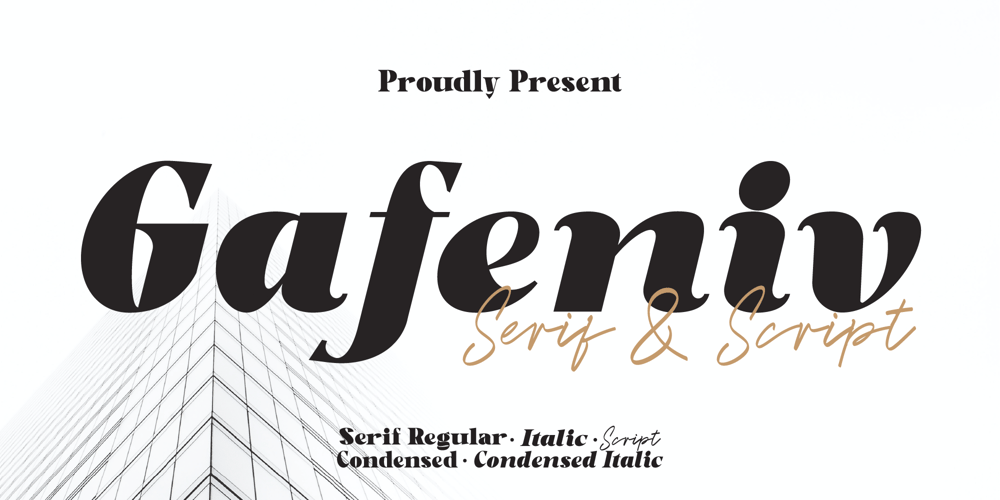
Gafeniv Font Family was designed by Randi Irvan and published by Rvandtype. Gafeniv contains 5 styles and family package options. Gafeniv is Duo font Serif & Script. It has a elegant, and modern look which can be used for logos, establishing brand identities, crafting invitations, creating stunning stationery, shaping wedding designs, or producing eye-catching social media posts.Features: 5 Styles Font Numbers and punctuation Multilingual PUA encoded Thank You